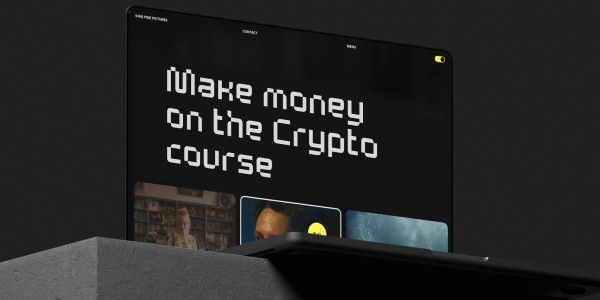
Glitch Font
Glitch Font is an accentuated modern typeface. It emphasizes the digital identity of your product. More often than not, pixel fonts look rough. Glitch has a more elegant, subtle shape, improving perception.